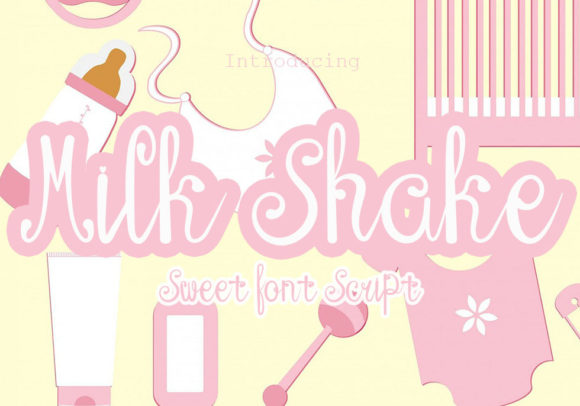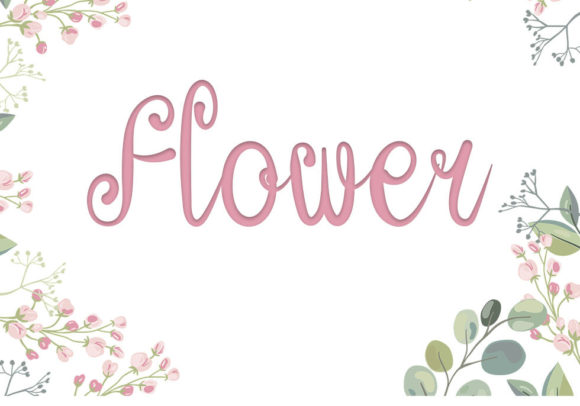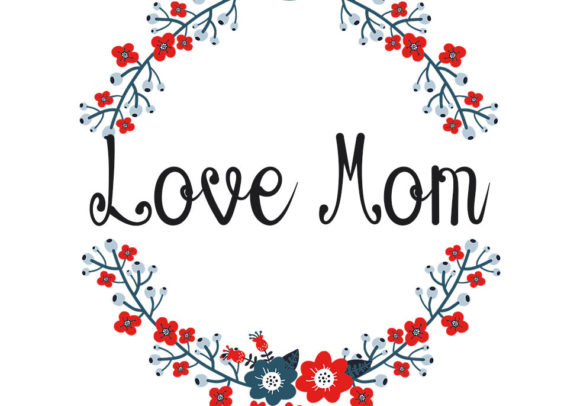
Milk Shake Font
About Milk Shake Font
Milk Shake is a cool and luxurious handwritten font. It is defined by smooth curves and is perfect for fashion branding or editorial designs. Add it confidently to your projects, and you will love the results.